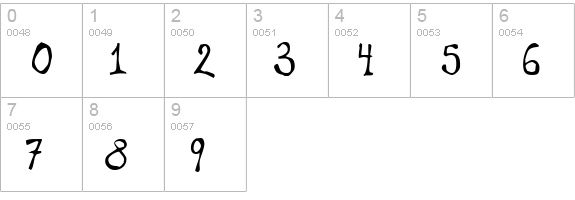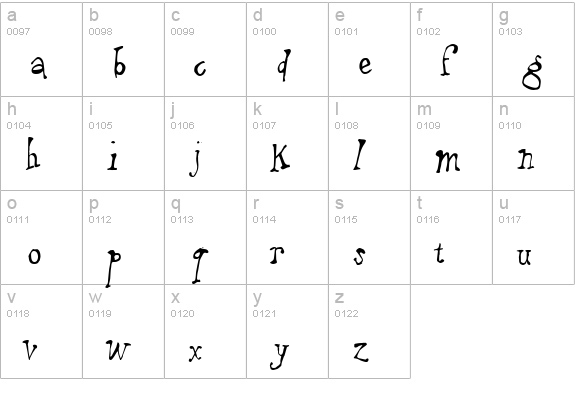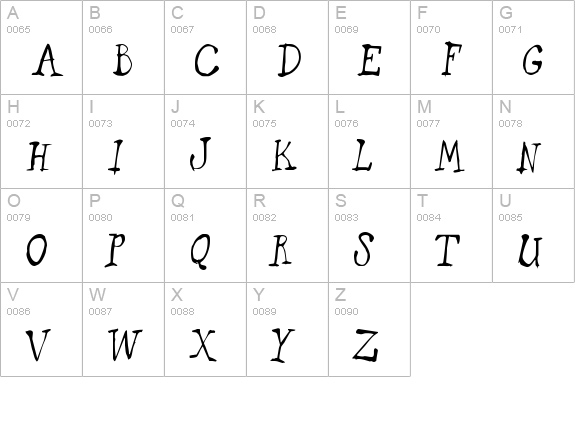
puppetFace Font Details
Introducing puppetFace font - a whimsical and playful typeface that brings a touch of charm to any project. With its quirky and unique design, puppetFace is perfect for creating eye-catching headlines, logos, and branding materials. This font embodies a sense of creativity and fun, making it ideal for projects that require a cheerful and lighthearted aesthetic. The best part? puppetFace font is available for free download at FontsMarket.com. So go ahead and add a touch of personality to your designs with this delightful font. Let your creativity shine with puppetFace!